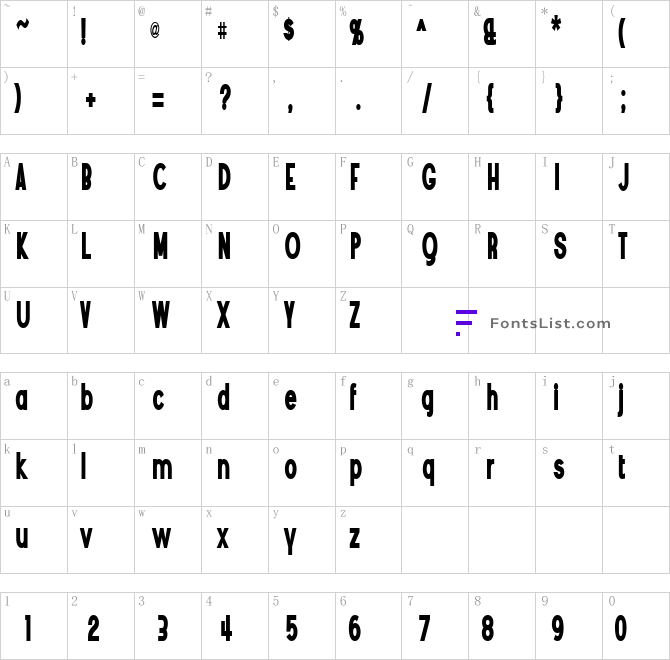
- Font Name:Angostura Black
Angostura-Black-copy-2-.ttf is a very beautiful artistic font, Angostura-Black-copy-2-.ttf is widely used in the design and printing of various books and pictures,Angostura-Black-copy-2-.ttf has a strong visual impact,Angostura-Black-copy-2-.ttf is a commonly used font in newspapers, magazines and books, and is used in posters, e-commerce Poster design, store design, logo design, font design and other fields.Angostura-Black-copy-2-.